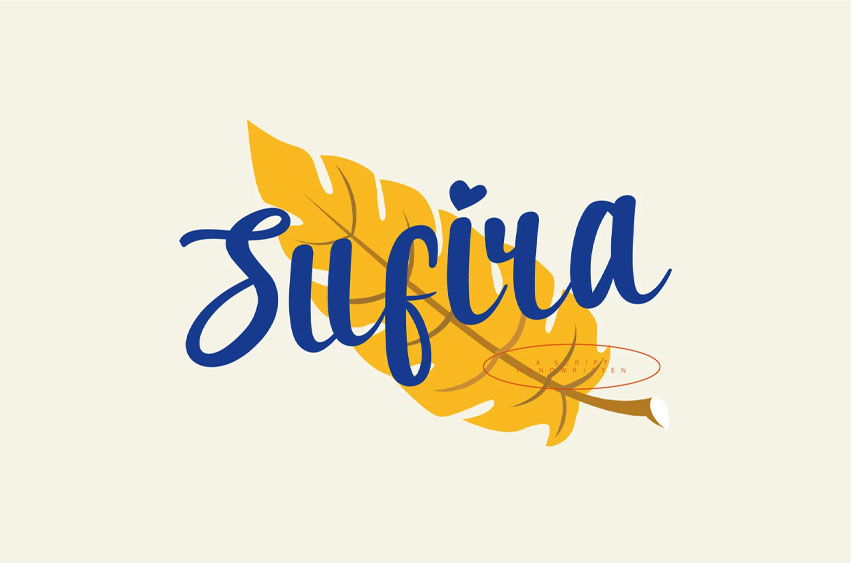
Sufira Font is a beautifully crafted script font that exudes elegance and fluidity. With its graceful curves and refined letterforms, it combines artistic flair with timeless sophistication.
The font’s sweeping strokes and delicate connections create a sense of luxury, making it perfect for upscale projects such as branding, invitations, and high-end designs.